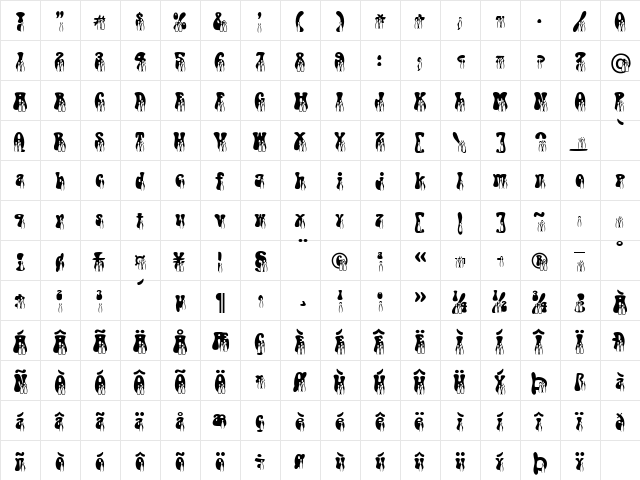
HB Kegel Normal
Design Context for HB Kegel Typeface
HB Kegel is a composed and adaptable typeface that performs quietly and consistently across a wide range of design contexts.